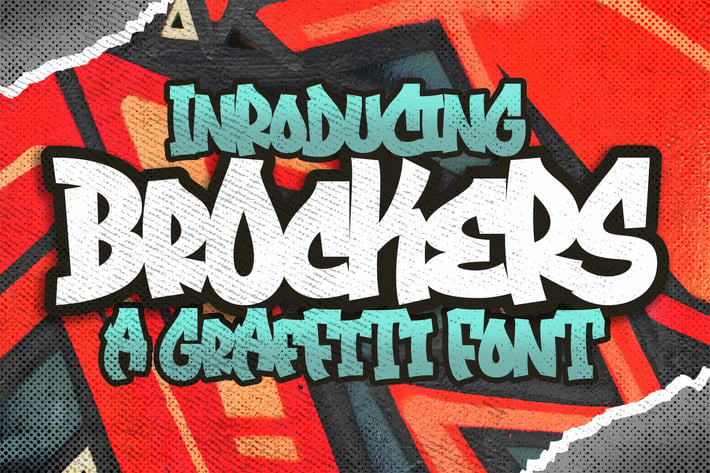
Brockers Urban Graffiti Art Business Font
Introducing of our new product the name is Brockers Urban Graffiti Font, Brockers inspired by graffiti style with a fun theme very good for graffity poster, Hip Hop music, kids poster, flyer, childrenbook, cartoon, comic etc